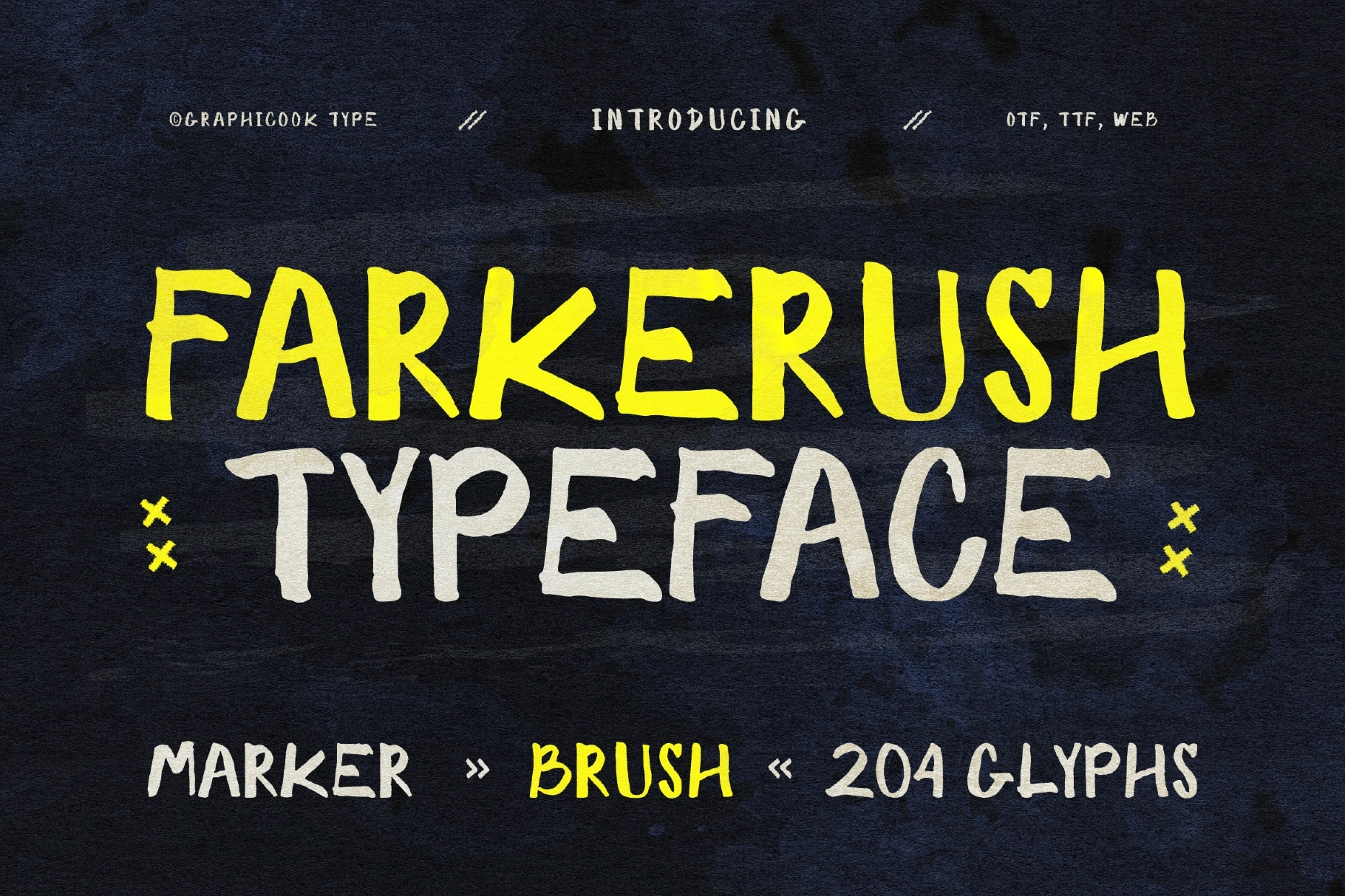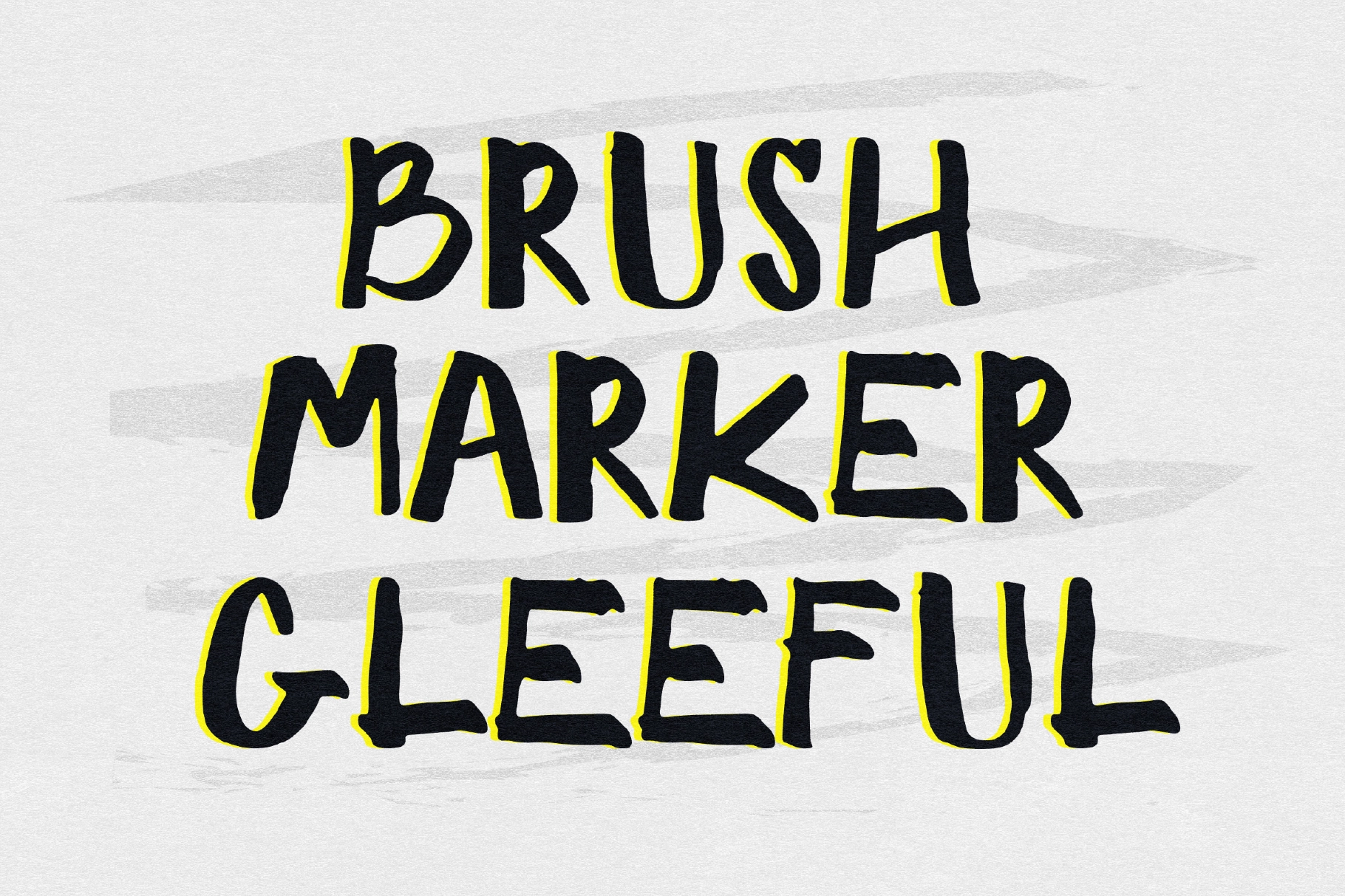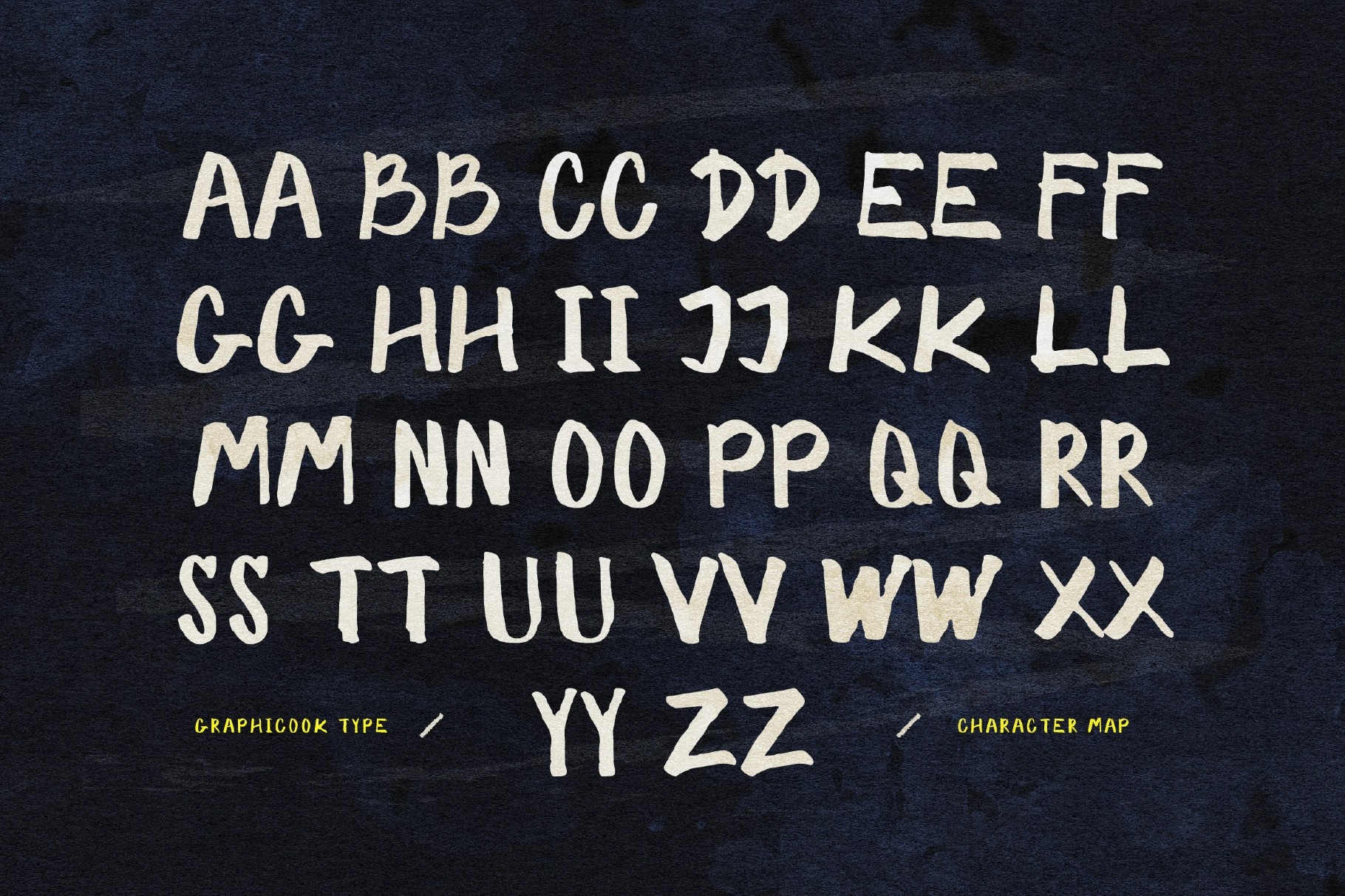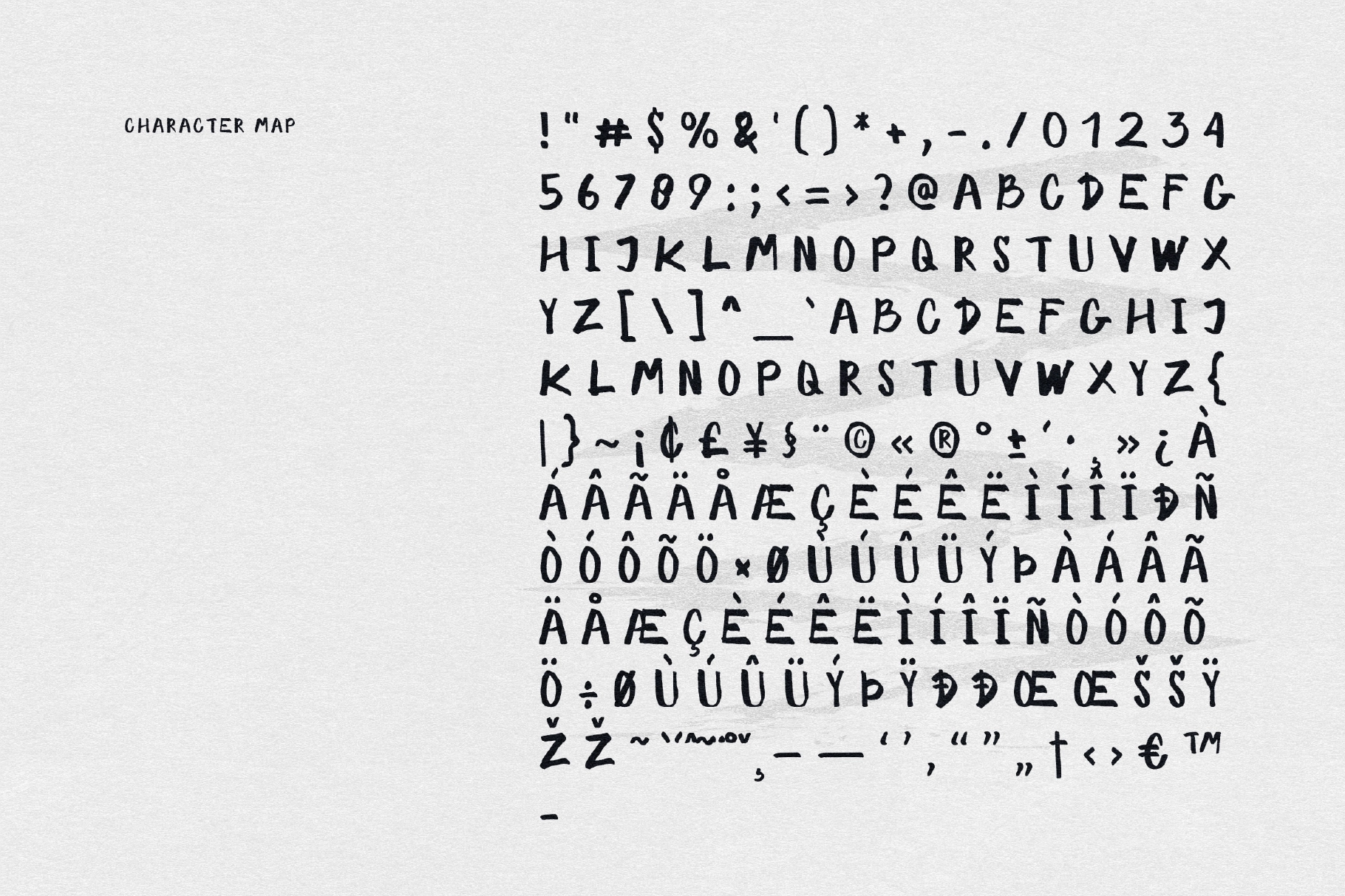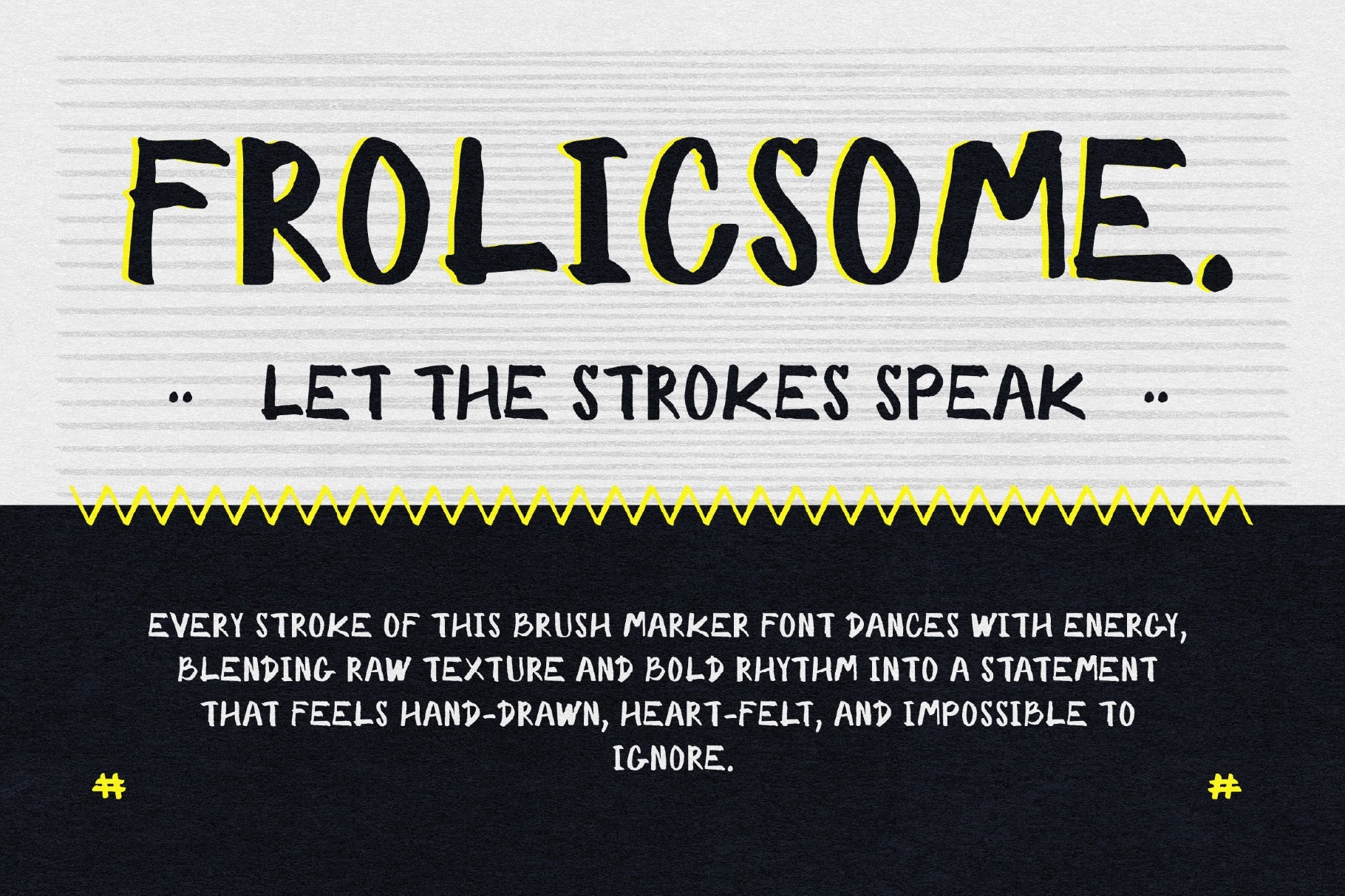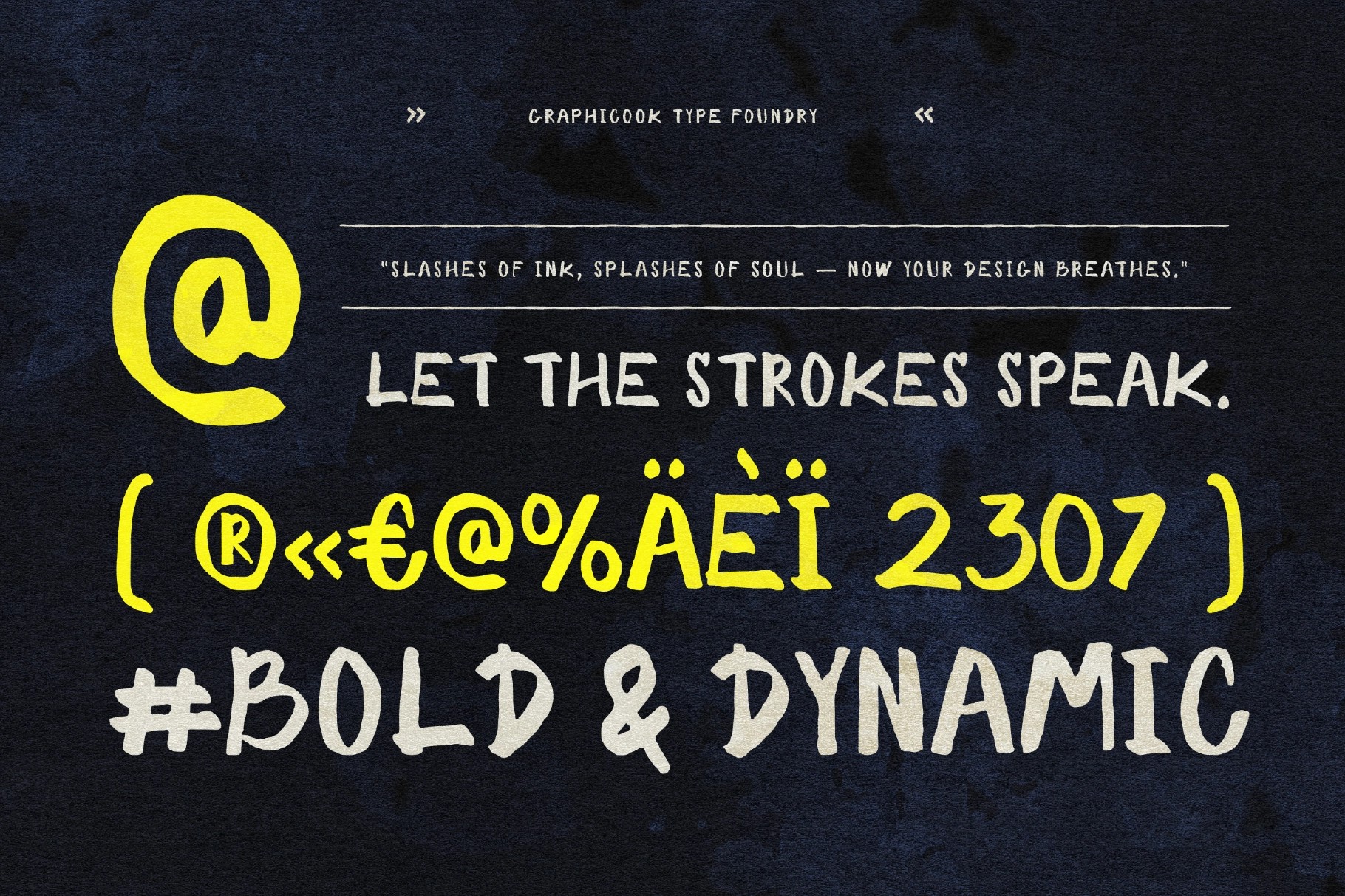
Farkerush Marker Font
Farkerush
Farkerush is an expressive, energetic handwritten font inspired by bold marker strokes and free-flowing brushwork. It delivers a casual, bold, and full of character look that perfect for designs that aim to feel spontaneous and full of life.